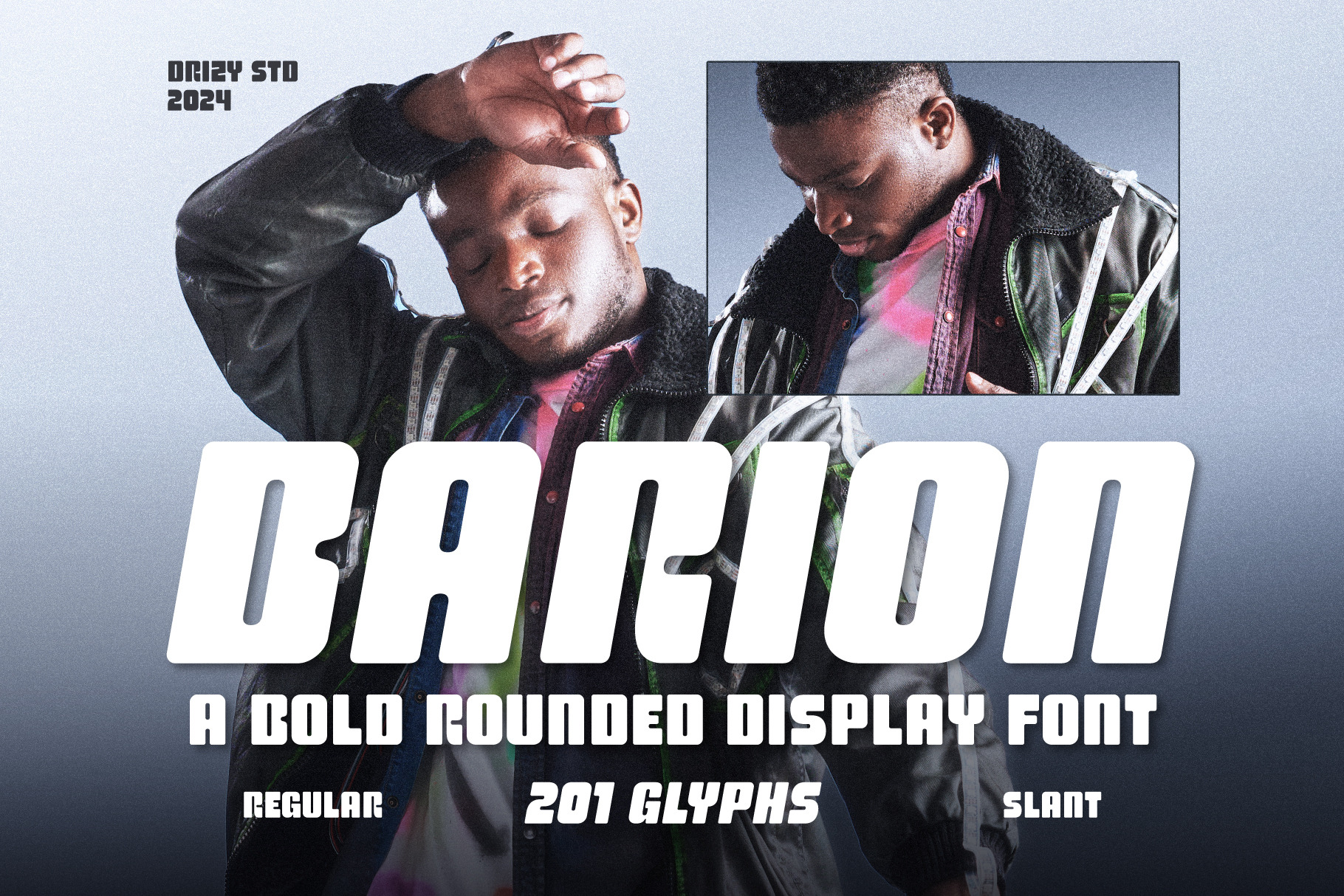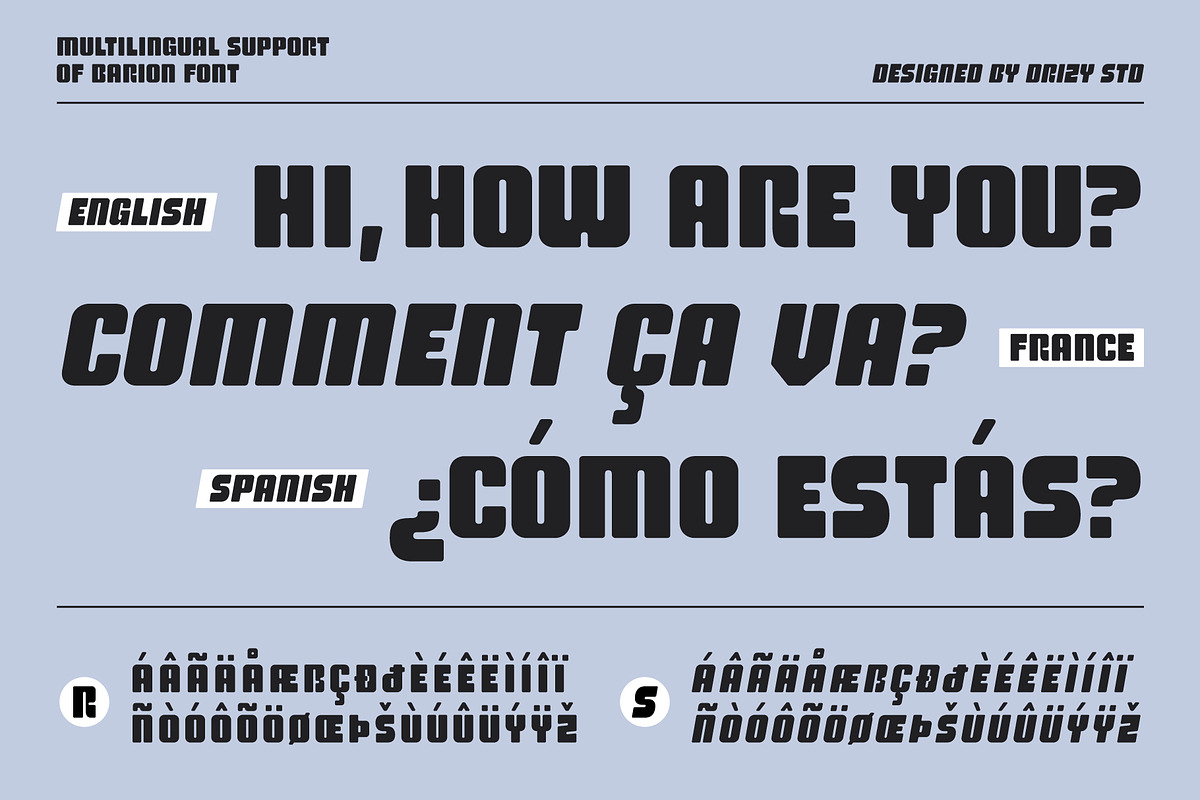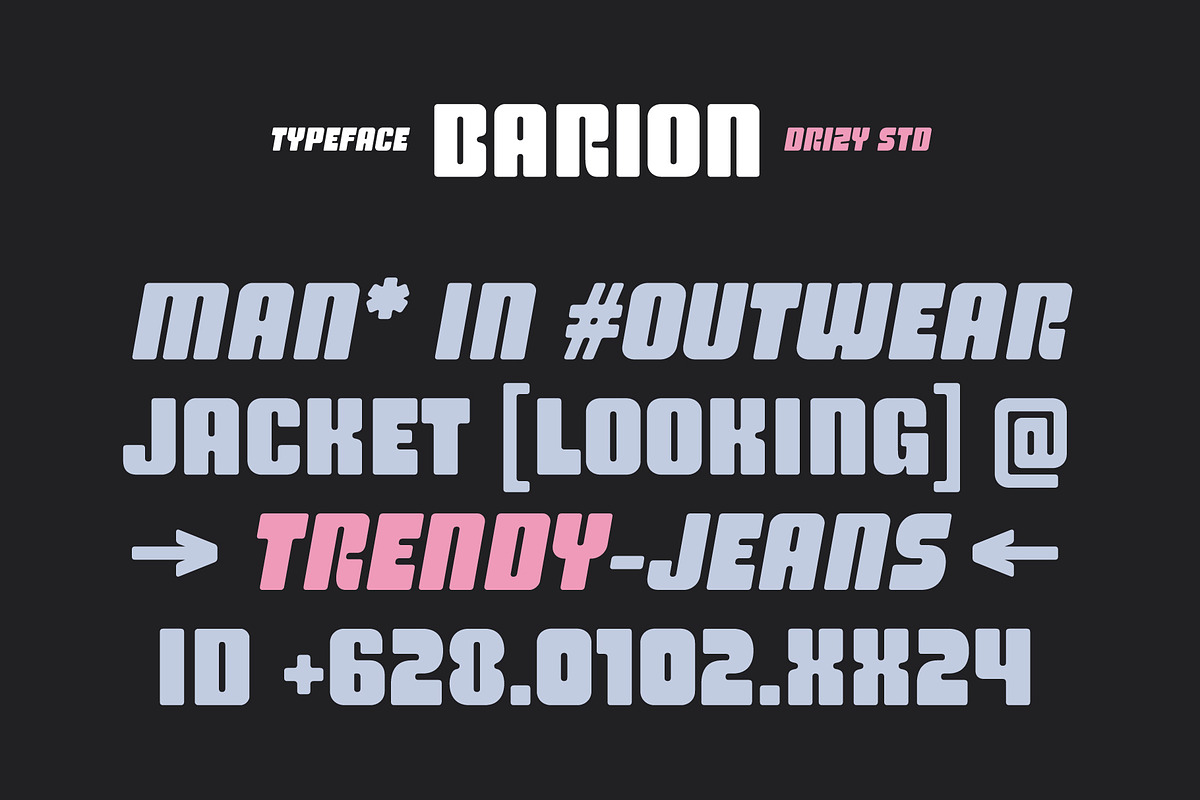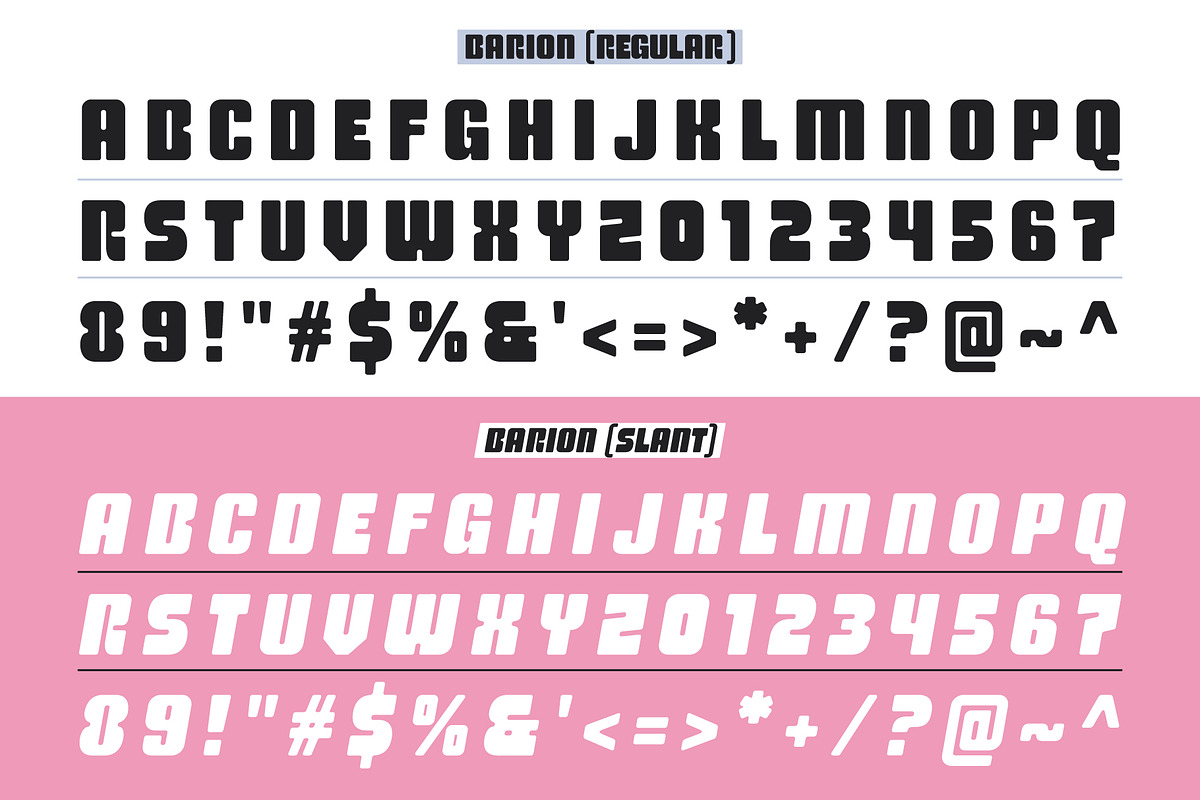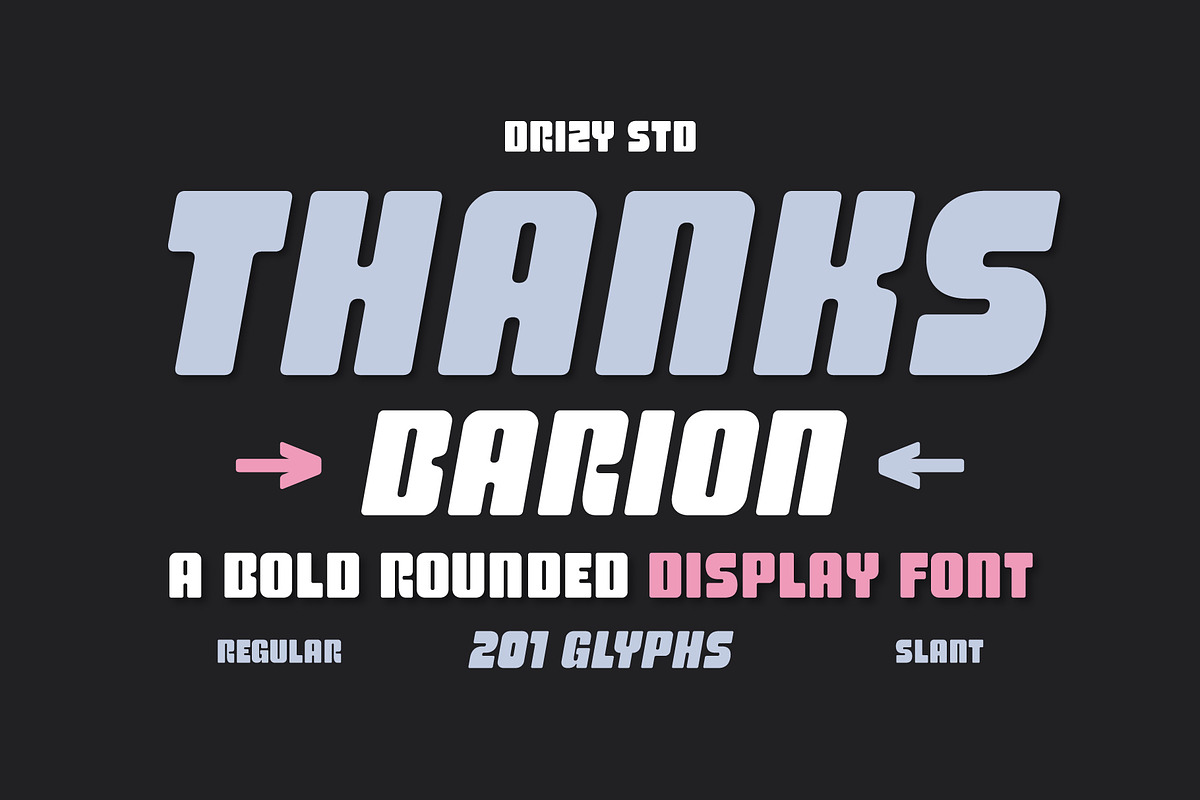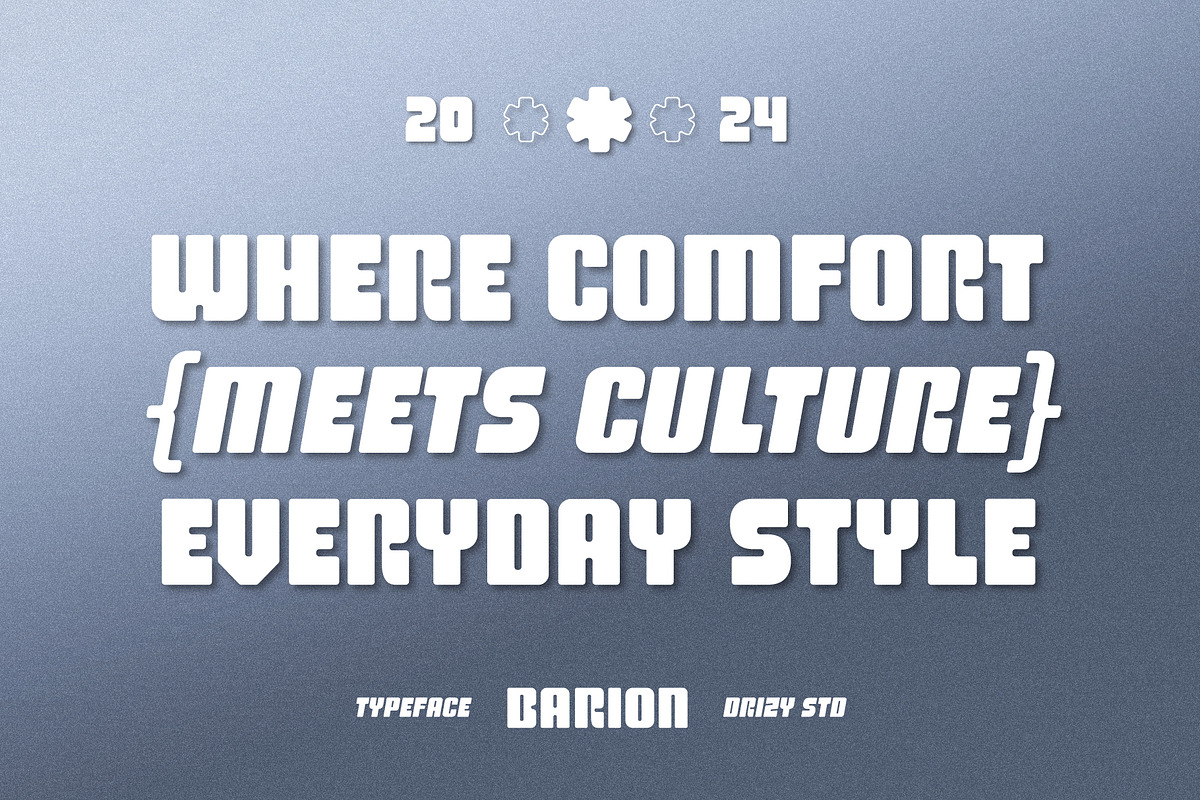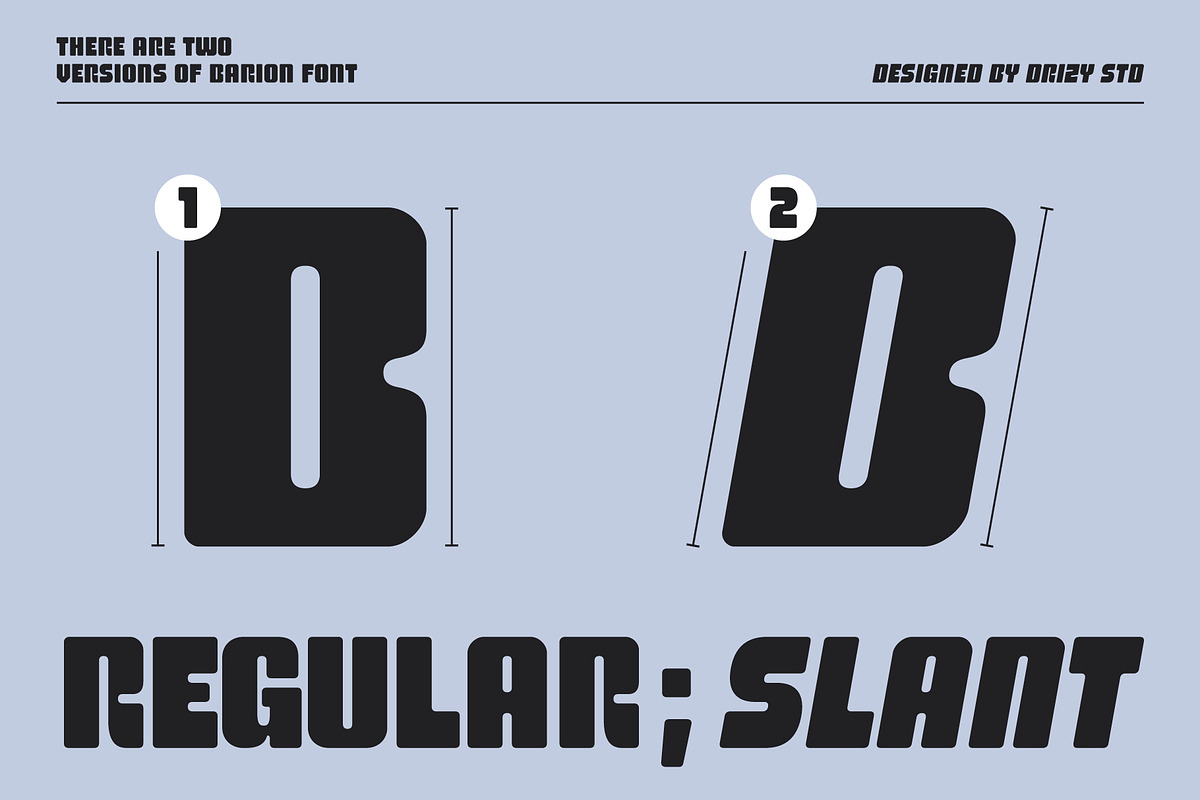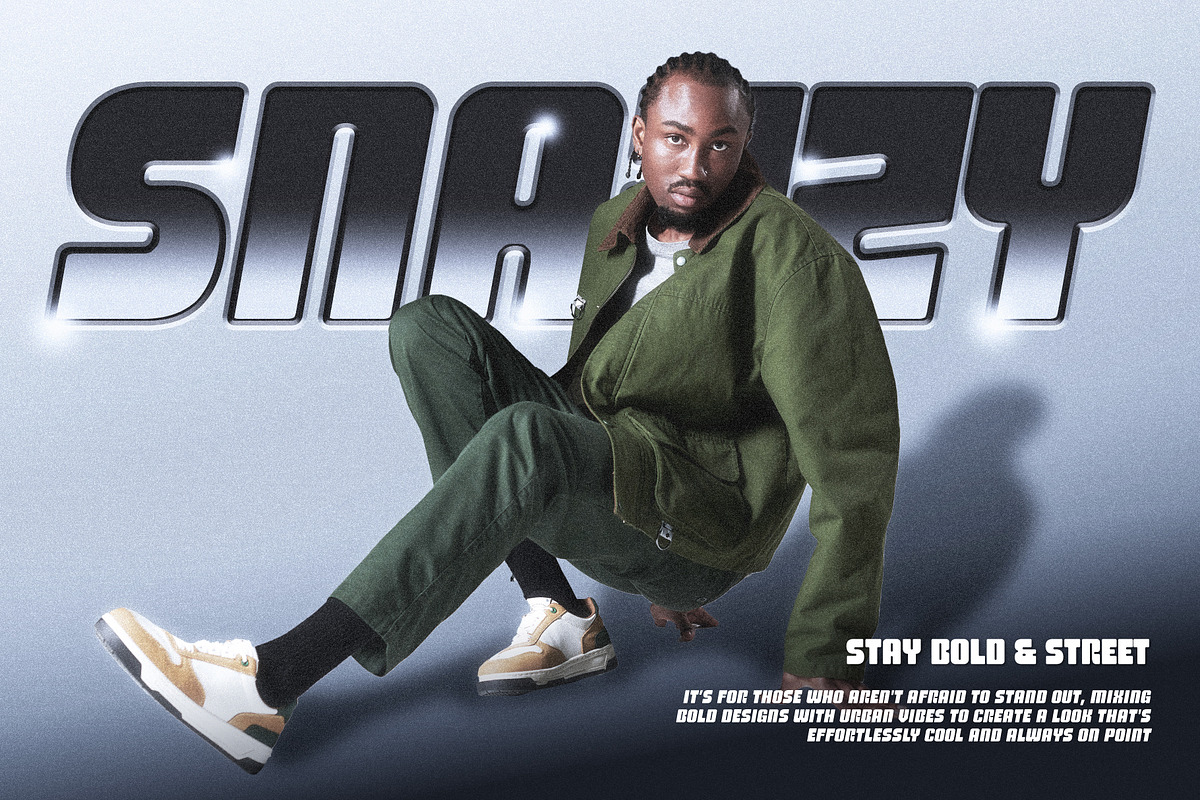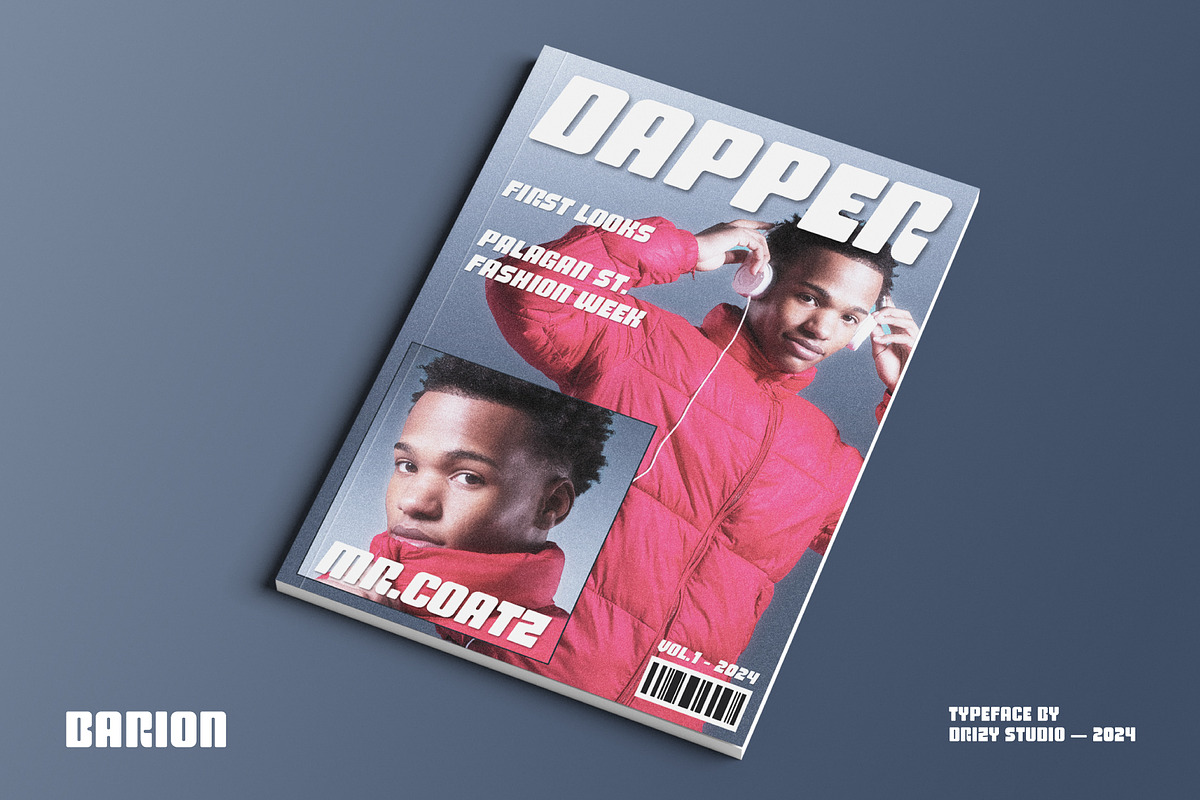
Barion – Bold Rounded Display Font
Barion is a versatile, eye-catching font that brings warmth and modernity to any Winter Streetwear theme. With it’s bold and rounded edges, Barion exudes a soft, approachable vibe while remaining strong and stylish a perfect blend for cozy, urban designs. Ideal for headlines, logos, and apparel branding, this font captures the essence of street style with a seasonal twist. Whether it’s for winter-themed merchandise or urban fashion statements, Barion effortlessly combines casual flair with a touch of winter chic, making your designs stand out with a cool yet inviting look.
Barion features:
- Character Set (All Caps)
- Punctuation & Numbers
- Regular & Slanted
Elevate and explore the design possibilities with this Winter Streetwear Design Font!